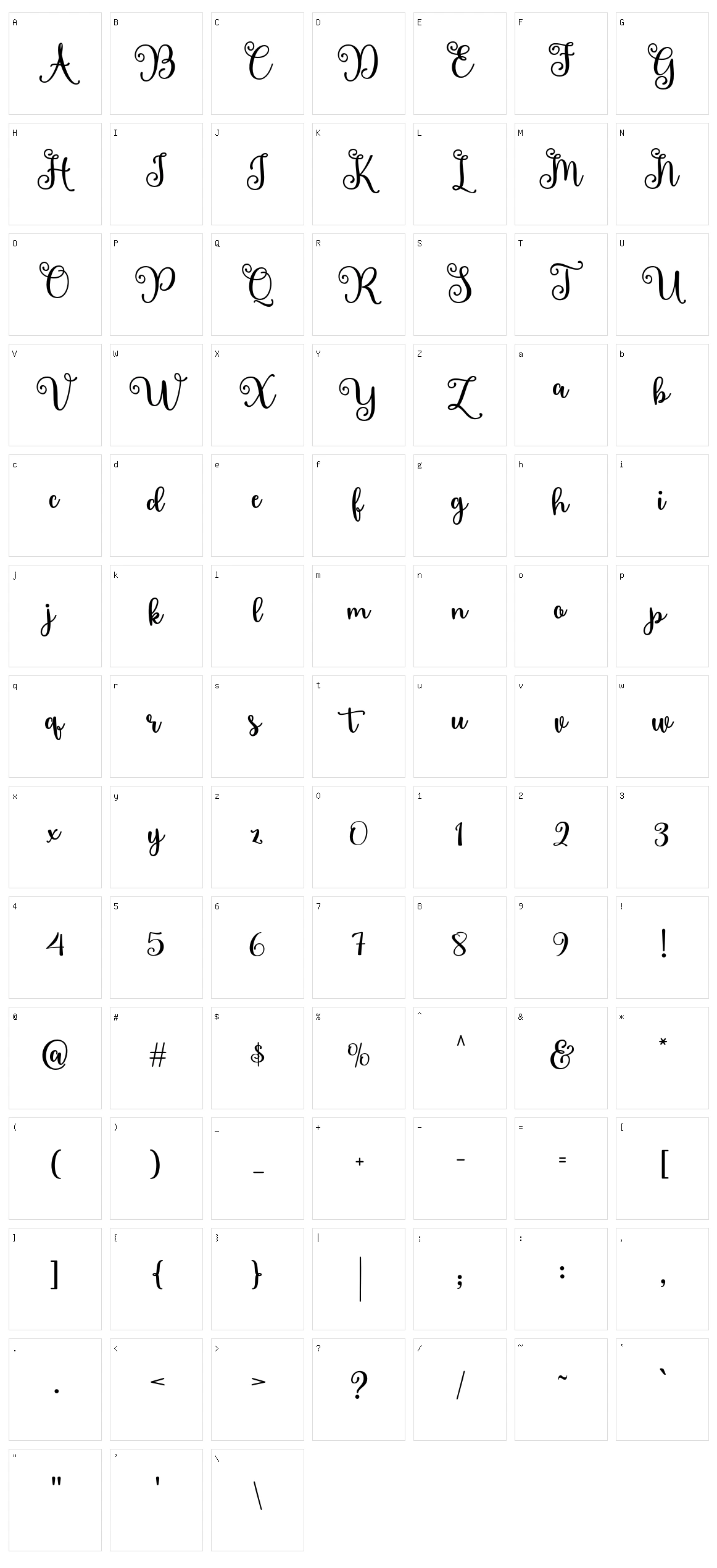
The free font Sristian is carefully designed by Aqeela Studio, showcasing a thoughtful balance of creativity and usability and falls under the Script font style. When you download the ZIP file, it contains only 111.11 KB of font files, making it lightweight and quick to download. Please review the license details below to understand permitted usage and distribution rights. If license information is not available, we recommend using this font for personal projects only or contacting the author directly for commercial usage permissions.